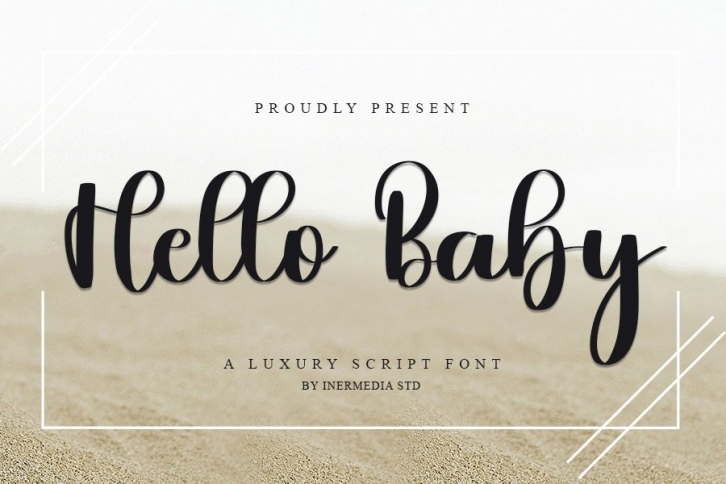
Hello Baby is a gorgeous font that was realeased on July 6, 2021. The font can be used in many style contexts and design environments. Perfect for invitations, magazines, websites, logos, and more! It was designed by InermediaSTUDIO and the file size is 19.93 MB. Thanks for checking out this font!